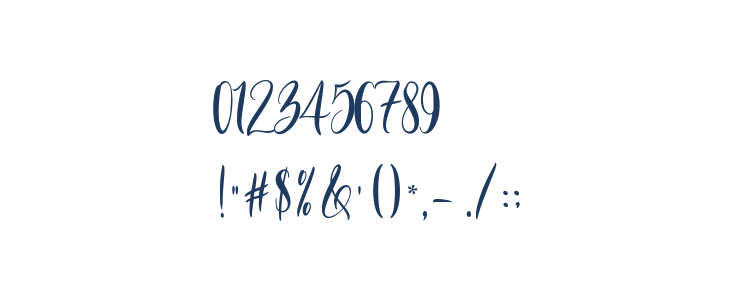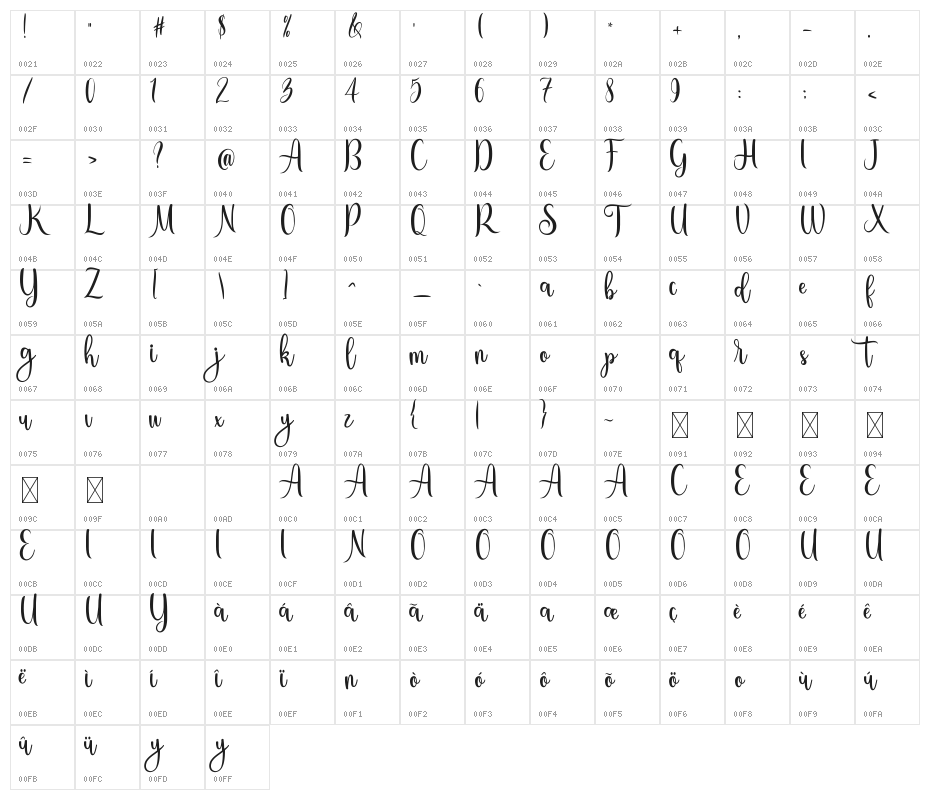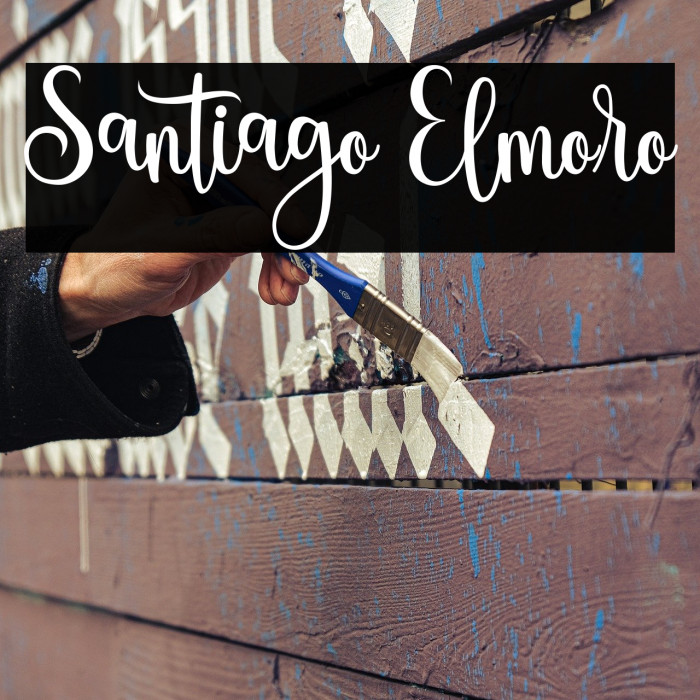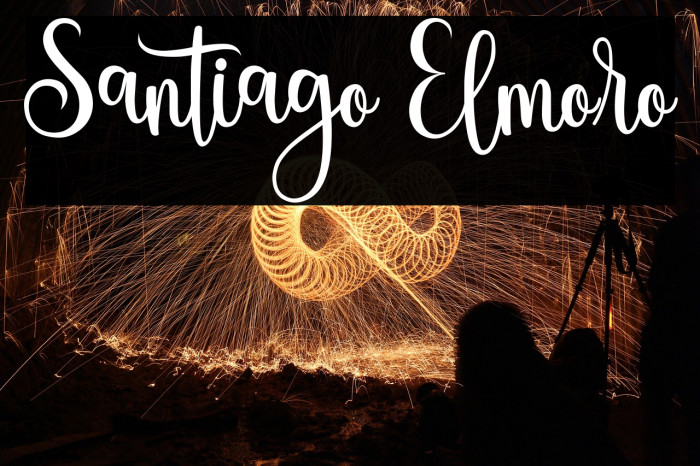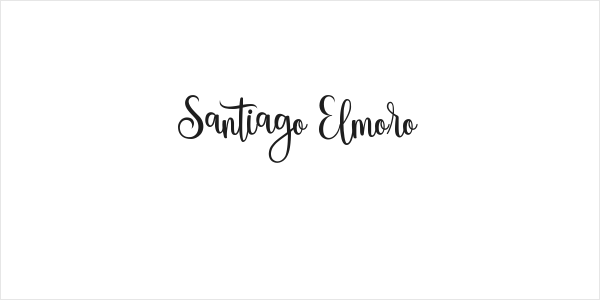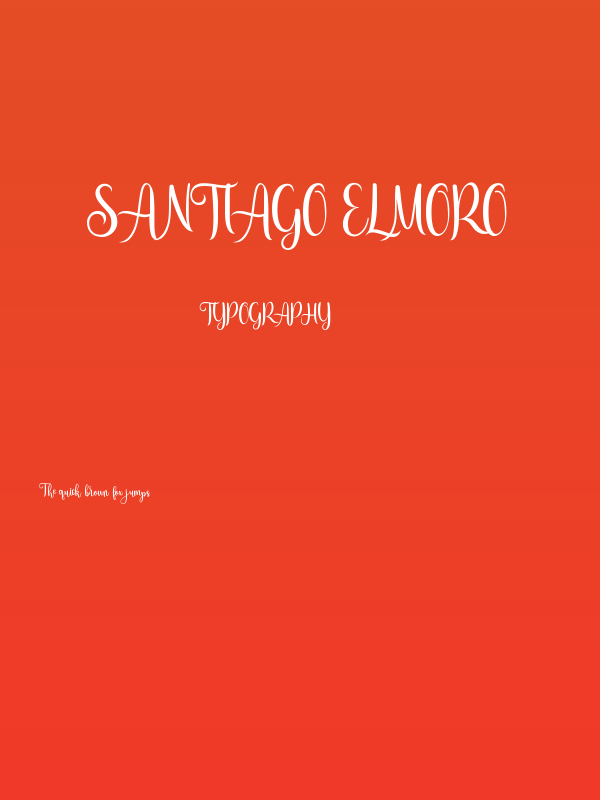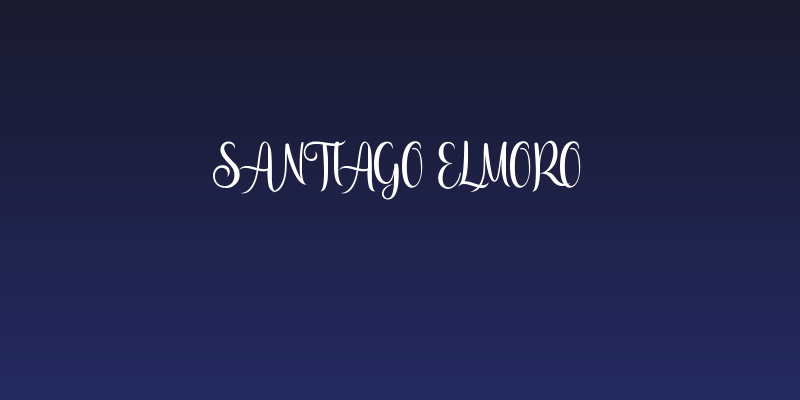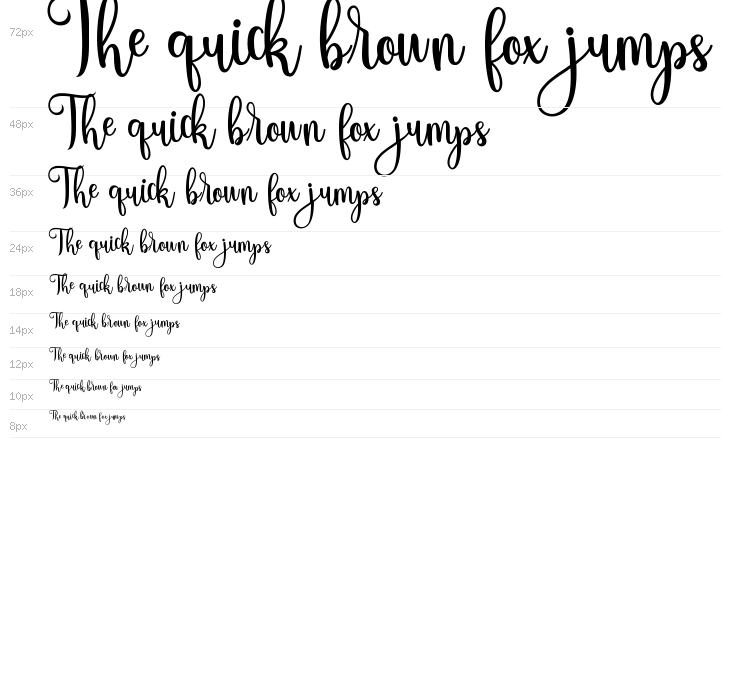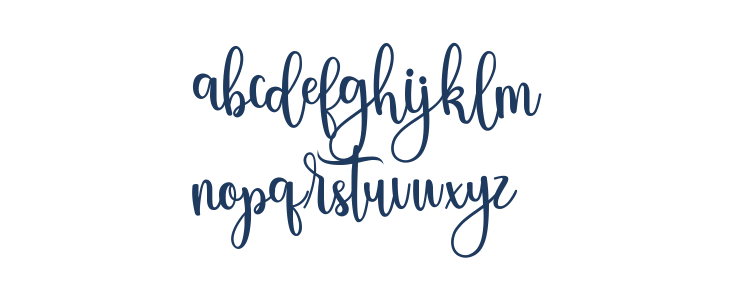
Santiago Elmoro Font
Santiago Elmoro Description
This font features a flowing, cursive style with elegant loops and swashes, creating a sense of movement and grace. The uppercase letters are tall and slightly narrow, with distinctive flourishes that add a decorative touch. The lowercase letters maintain a consistent rhythm, with some characters extending below the baseline, enhancing the font's dynamic appearance. The numerals are styled to match the letters, with a similar emphasis on curves and fluidity. Special characters are integrated seamlessly, maintaining the overall aesthetic. This font is perfect for projects that require a personal, artistic touch.